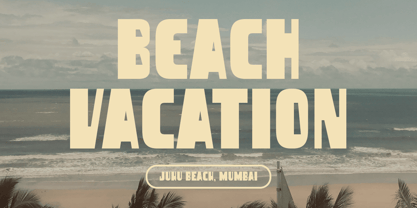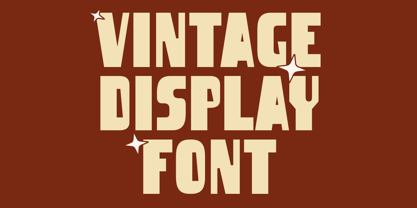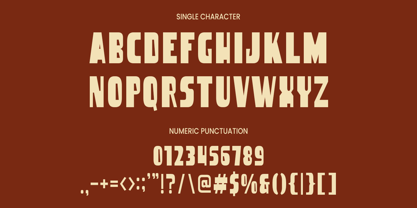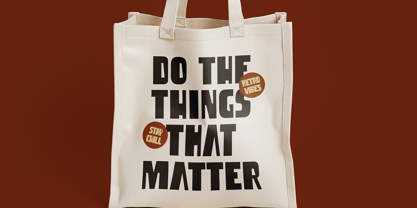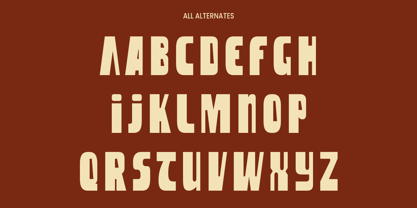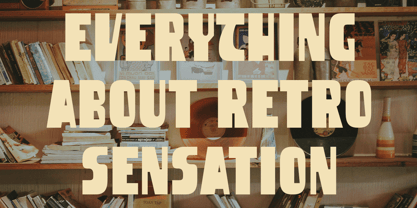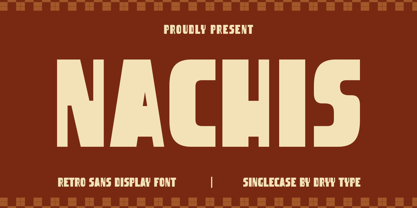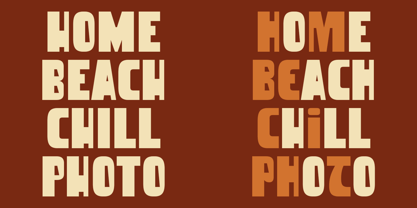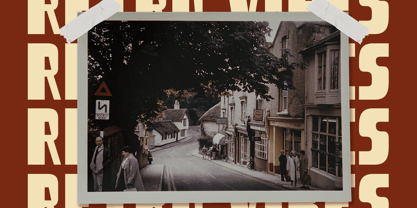
DT Nachis
by Dryy Type
The DT Nachis Font Family was designed by Rian Dryana and published by Dryy Type. DT Nachis contains 1 styles.
DT Nachis font is a Retro display font, is a retro-themed font created to make your design more fun and add a cheerful and retro impression when using it, This font I created is meaningful & very versatile, it goes well with various designs, elevating them to the highest level. Add this font to your favorite creative ideas and see how it comes to life! Features : Singlecase, Alternate, Numerical, & Multilingual Support 264 Glyphs Support for over 230 languages